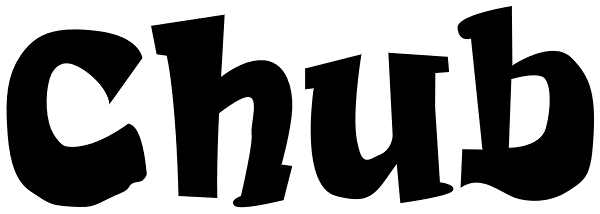
Chub
Chub was inspired by and dedicated to: Jimmy Dean Pork Sausage, J Otto, Ben & Jerry, Spunk, Chuck Jones, Run DMC, those teenage kids with their big baggy pants, French Market coffee, George Clinton, Bill Clinton, Chistina Ricci, Sesame Street and...